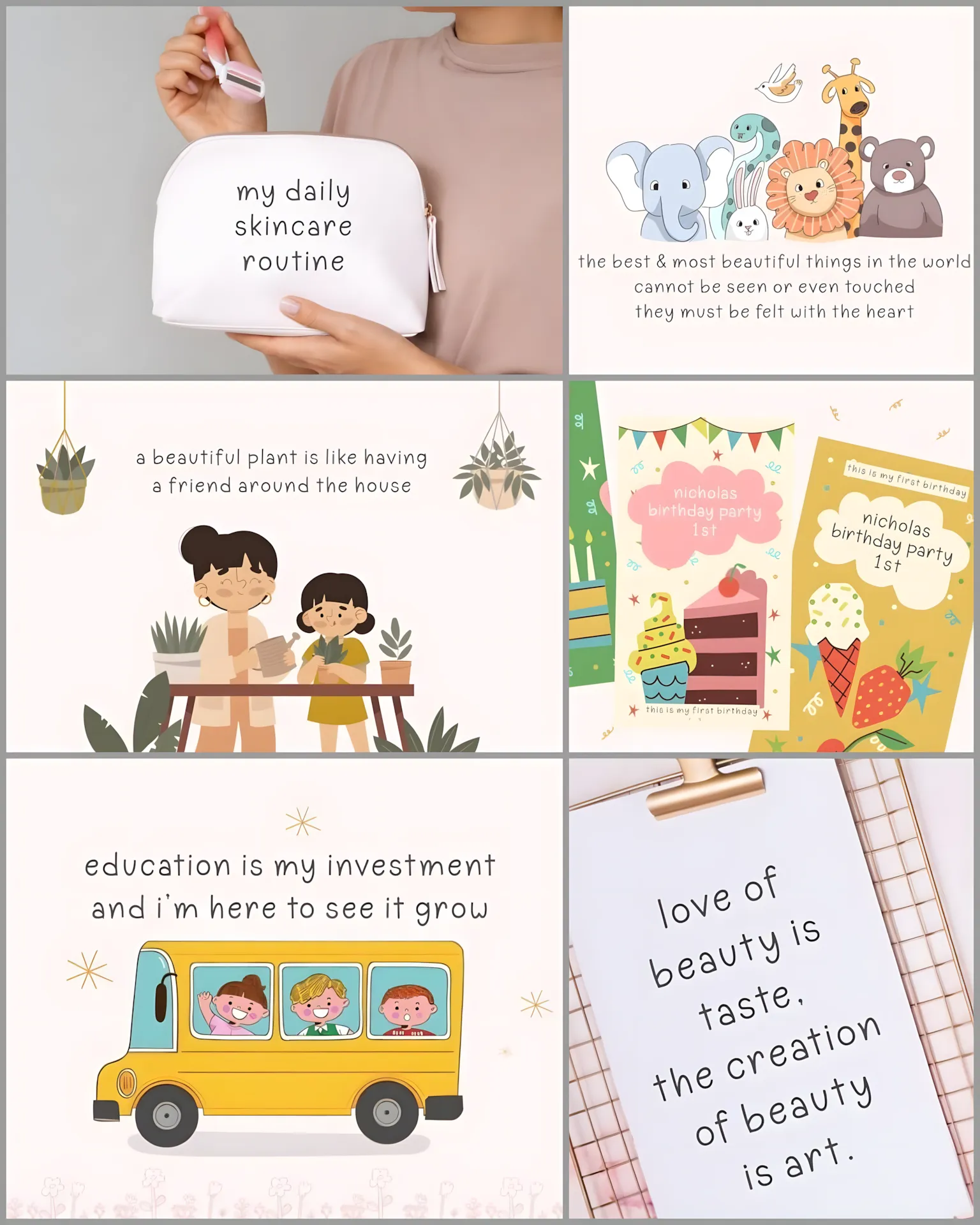
Magical Birthday is a sweet, handwritten font that can spark ideas and give your projects a friendly, personal touch. Its soft, round letters and natural flow make it great for celebrations, personal stories, and anything that needs a bit of creativity. It feels warm and approachable, which helps your designs show real emotion instead of just looking perfect.
For blog posts, Magical Birthday is a nice option for titles, quotes, and to make important points stand out. It goes well with simple sans-serif or classic serif fonts. This mix keeps your content easy to read while making it visually appealing. This font works especially for lifestyle, DIY, parenting, education, and design blogs where a personal feel is important.
Magical Birthday could work for articles about birthday parties, handmade cards, school events, art projects, or design guides. You can use it in images, mockups, printables, and social media posts that go with your blog content. It's flexible, so it looks nice both online and in print. It stays clear on screens and keeps its handwritten feel when printed.
Basically, Magical Birthday is a font that helps you tell stories. It makes your blog posts feel warmer, more interesting, and easier to relate to. This helps your audience feel connected to your message and your creative ideas.